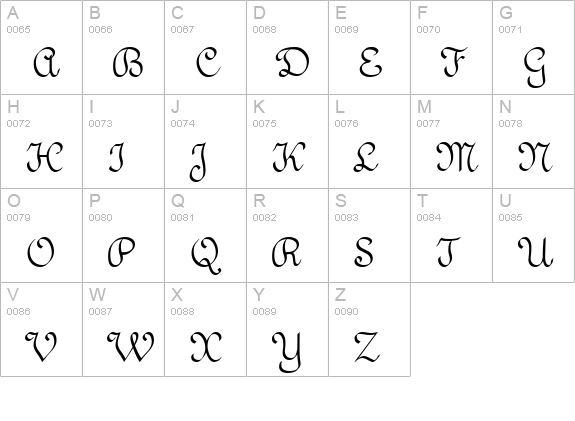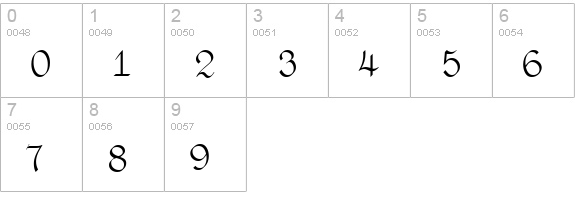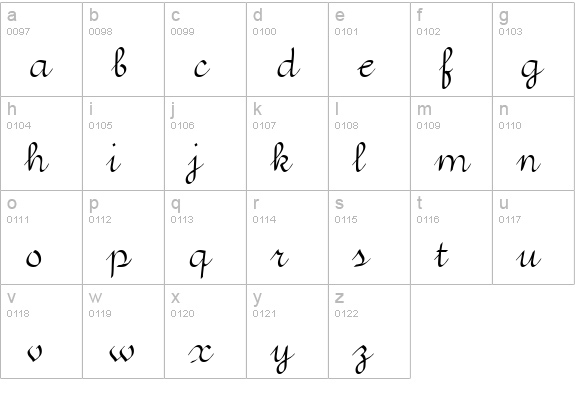
VunderScript Plain Font Details
VunderScript Plain font is an exquisite display typeface that brings a touch of elegance and sophistication to any design project. Its clean and minimalist design makes it perfect for a wide range of applications, including branding, packaging, headlines, and more. With its unique and stylish letterforms, VunderScript Plain font adds a sense of charm and personality to your designs. Each character has been carefully crafted to ensure maximum legibility and readability, making it a perfect choice for both print and digital projects. One of the best things about VunderScript Plain font is that it is free! That's right, this stunning font is freely available to download at FontsMarket.com. Whether you're a professional designer or a hobbyist, you can now enjoy the beauty and versatility of VunderScript Plain font without spending a dime. So why wait? Download VunderScript Plain font today and elevate your designs to a whole new level. With its timeless appeal and sophisticated aesthetic, this font is sure to make a lasting impression on your audience. Don't miss out on this amazing opportunity to enhance your creative projects with a high-quality, freely available font.